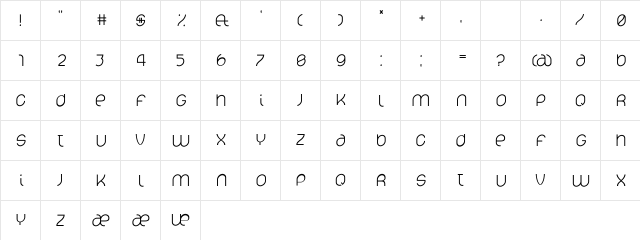
lelim Light
| Designer | Stefan Motzigemba |
Design Context for lelim Typeface
lelim offers clean, dependable letterforms without strong stylistic allegiance, making it a practical choice for designers who need flexibility. The delicate stroke weight brings airiness and refinement to layouts.